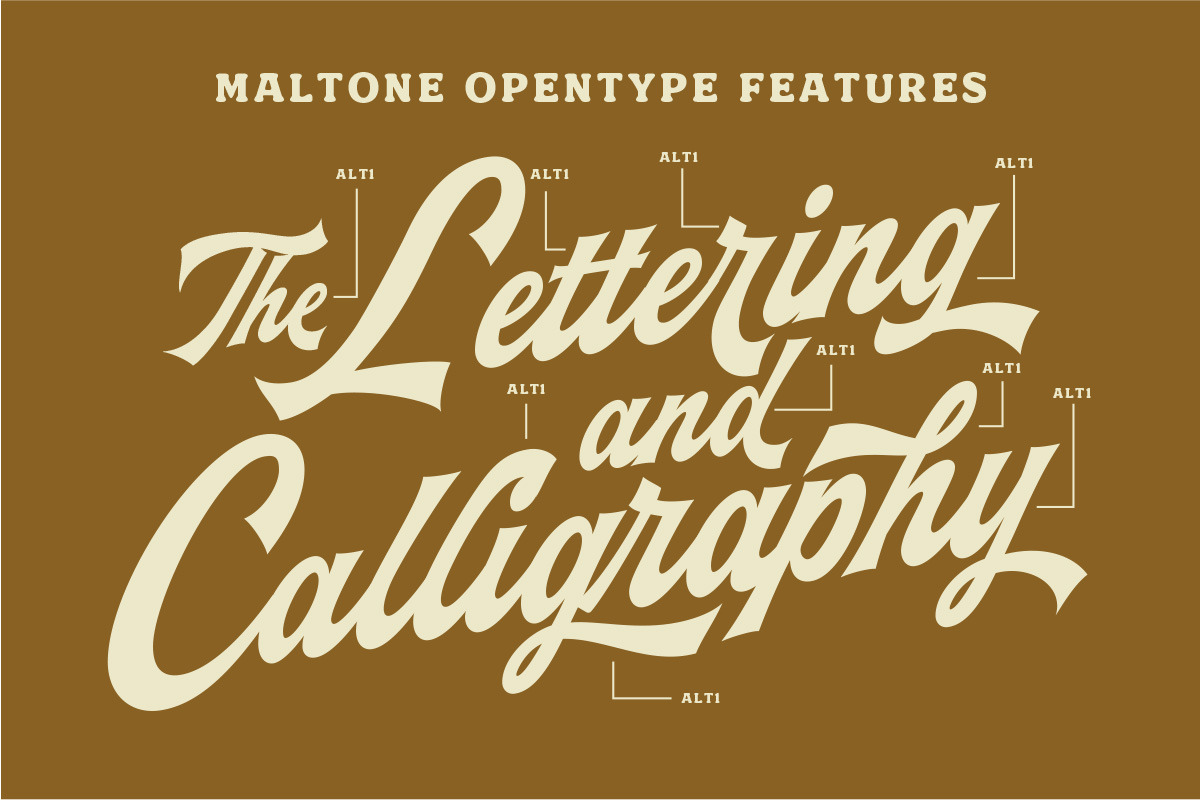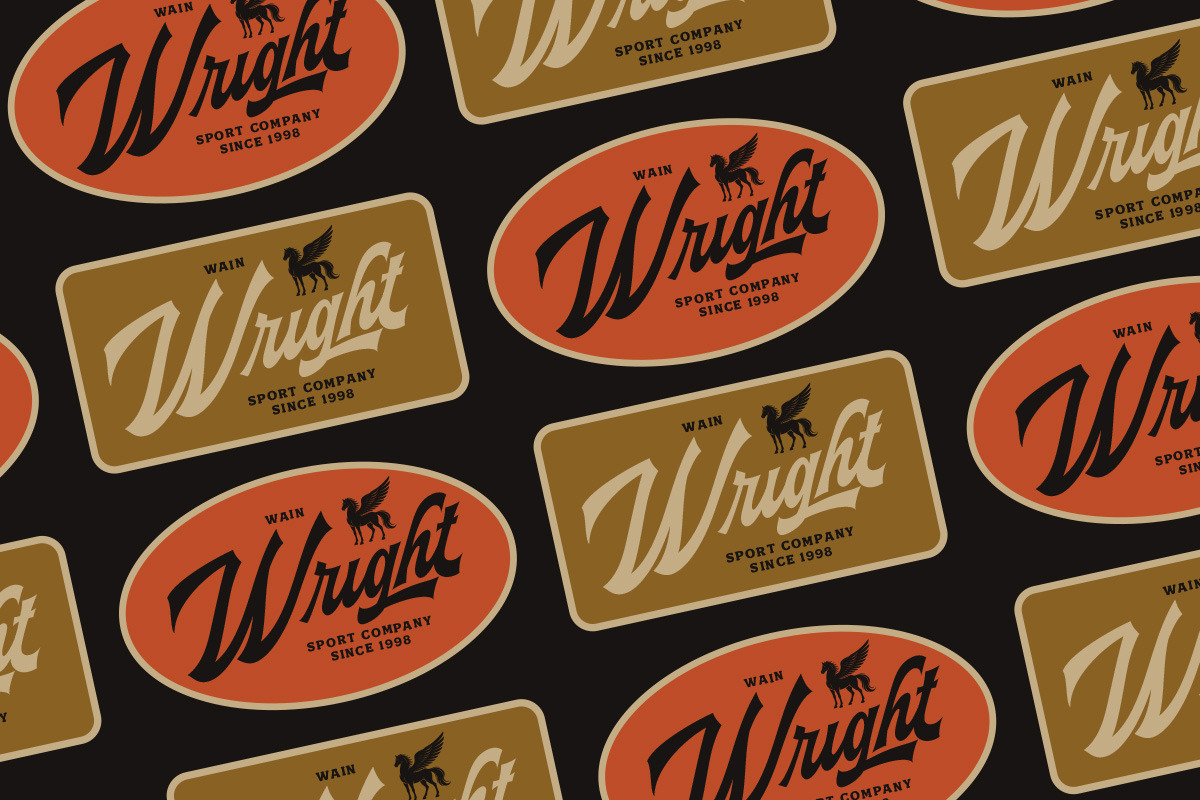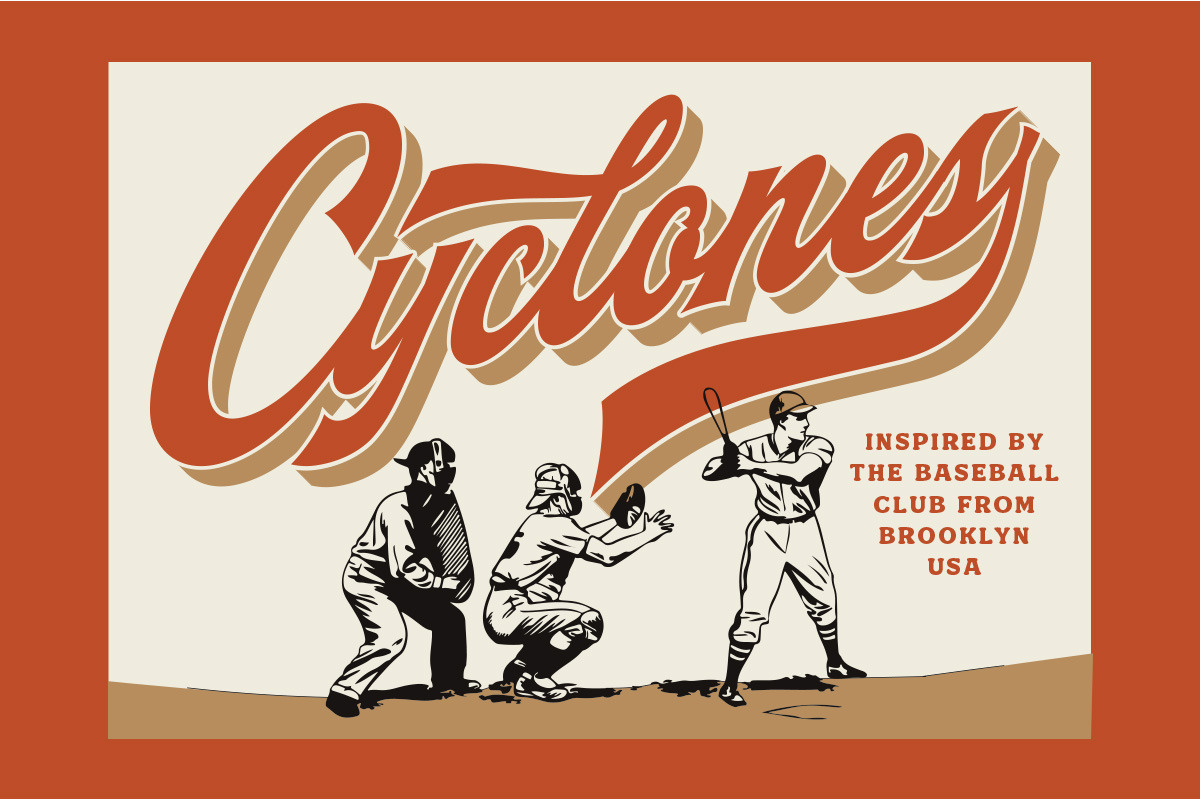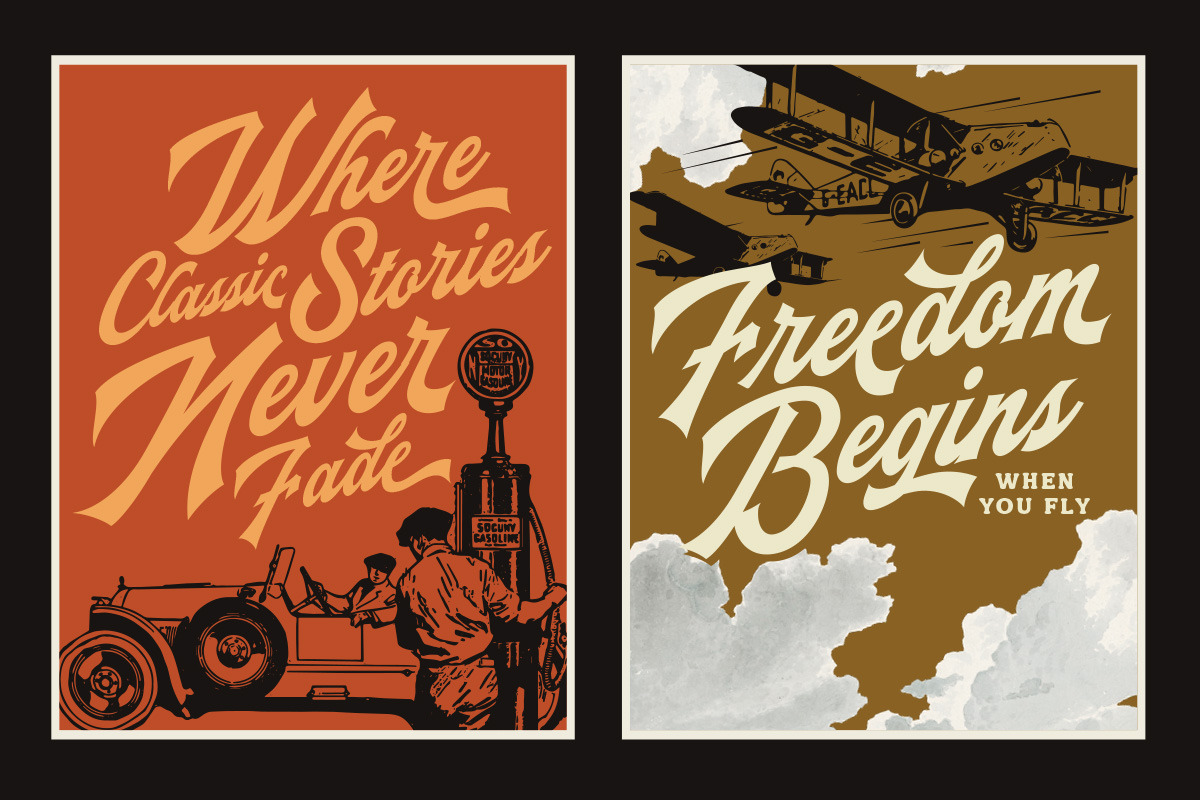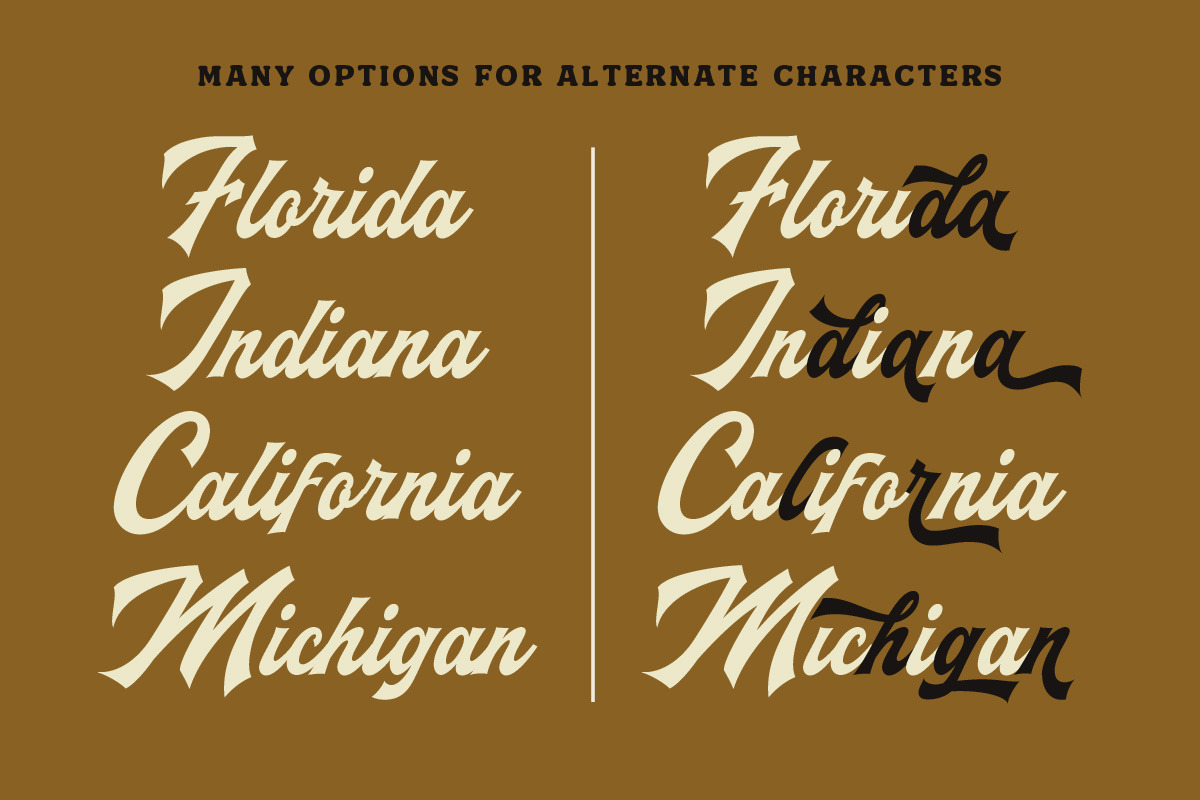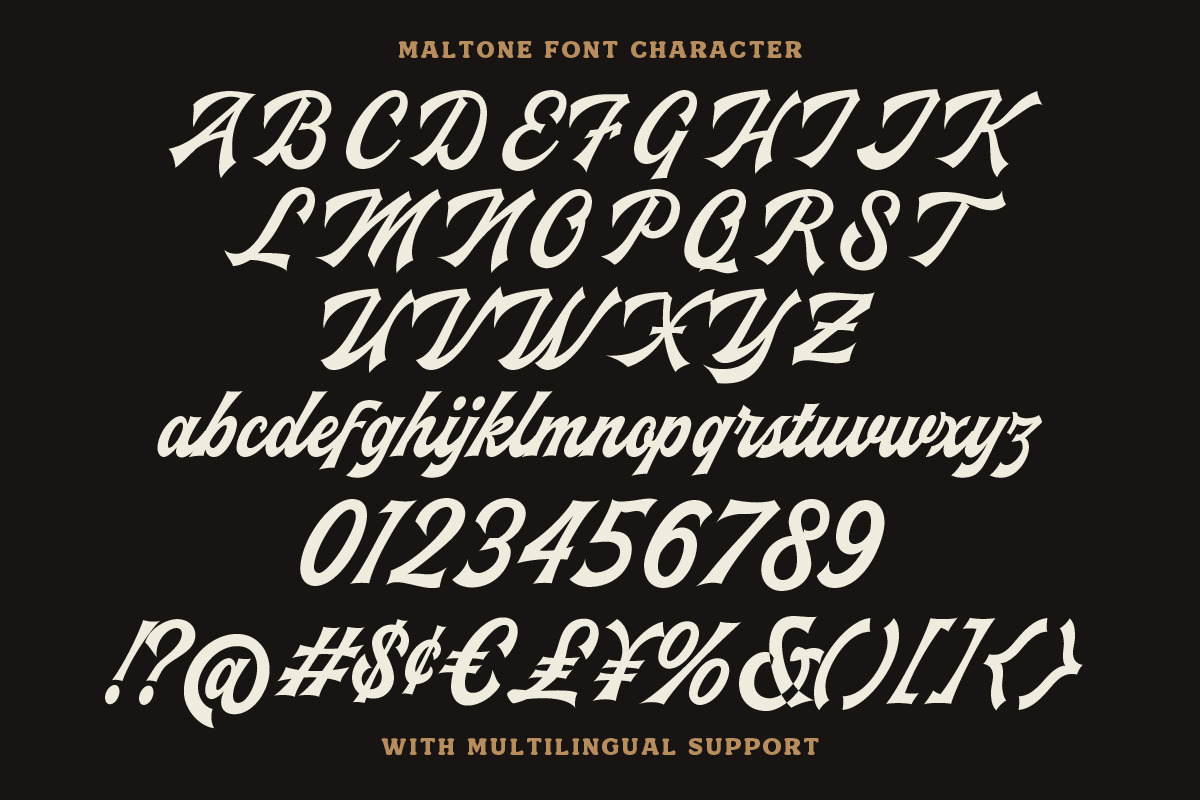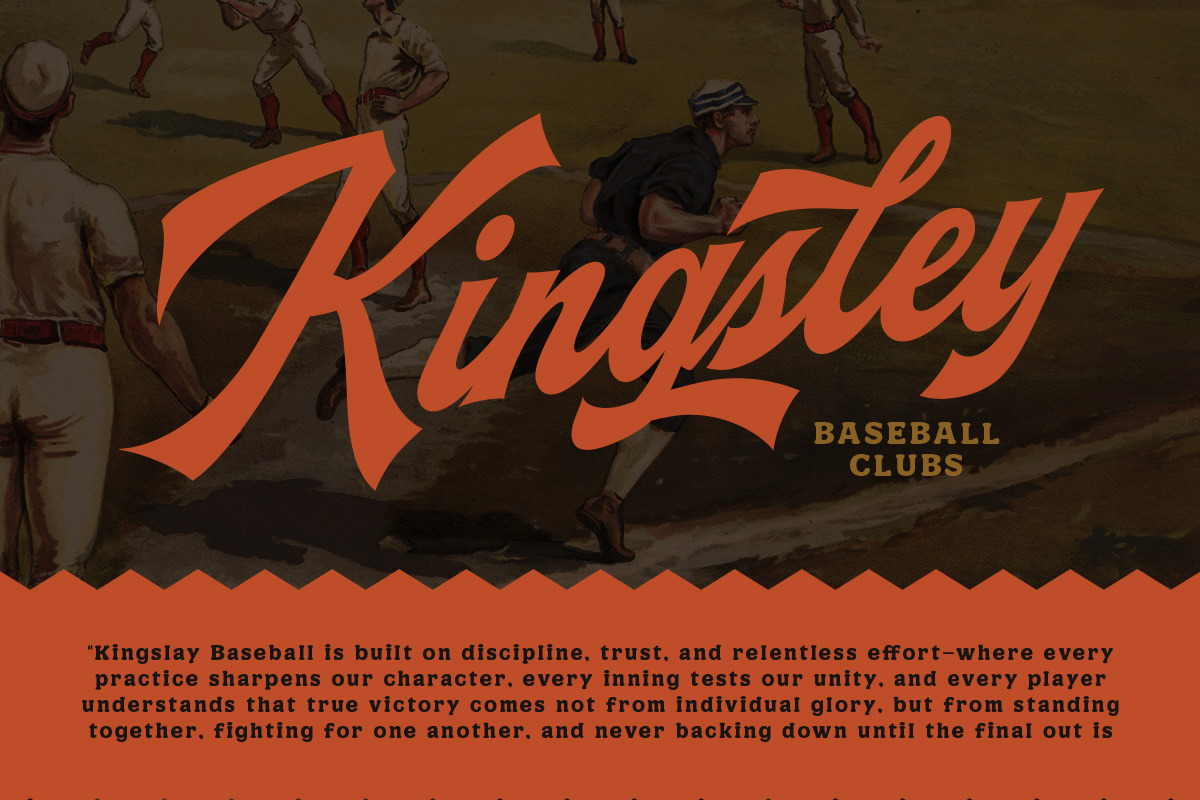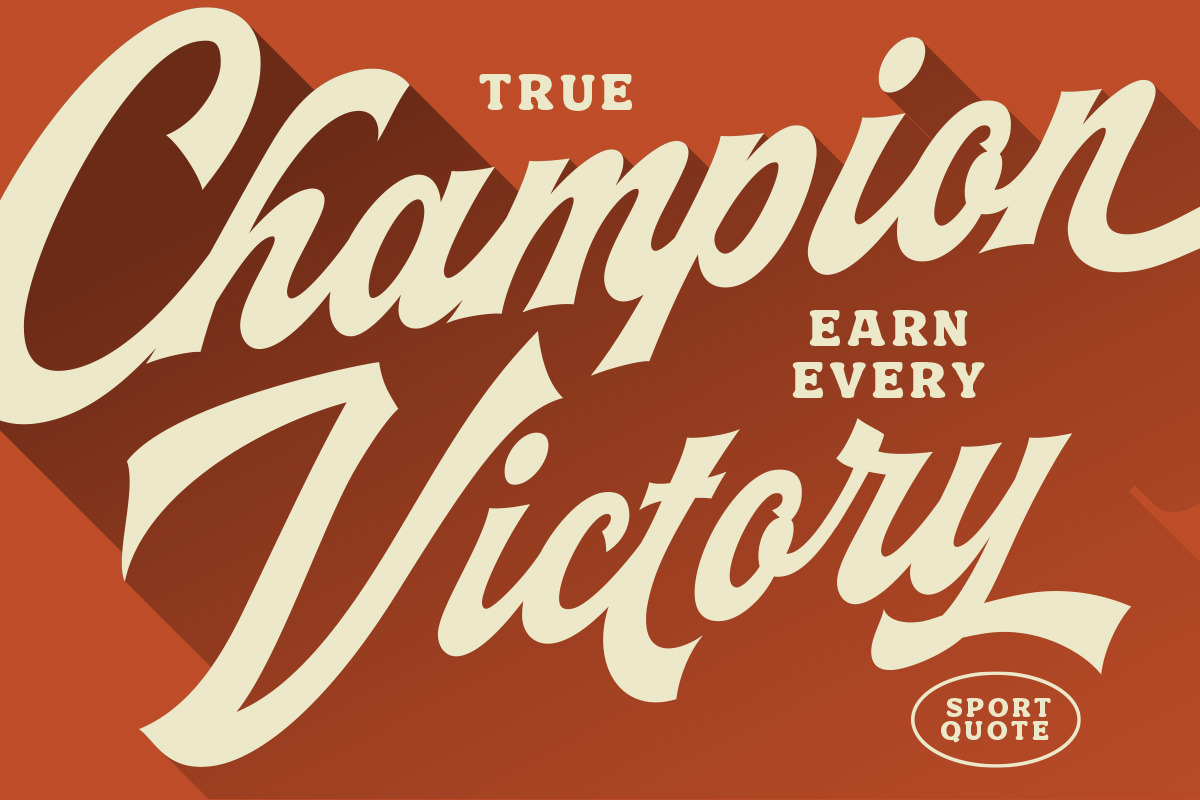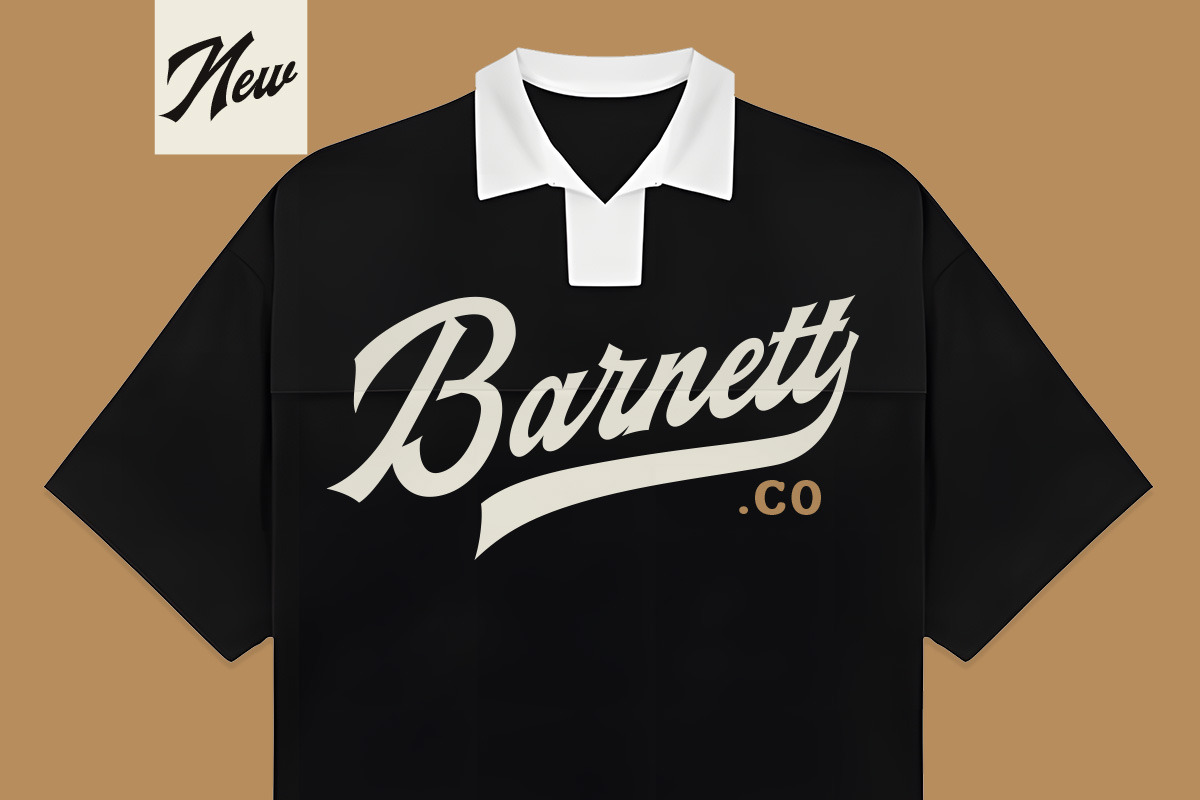
Maltone Script
Maltone is a vintage script typeface with bold strokes, sweeping curves, and confident letterforms inspired by classic sign painting and retro labels. The look feels warm, timeless, and handcrafted, with a smooth flow that adds character without losing clarity. Its overall vibe is retro, confident, and friendly, making Matone a strong choice for logos, posters, packaging text, signage, menus, and branding visuals that want a nostalgic touch with a clean, professional finish.